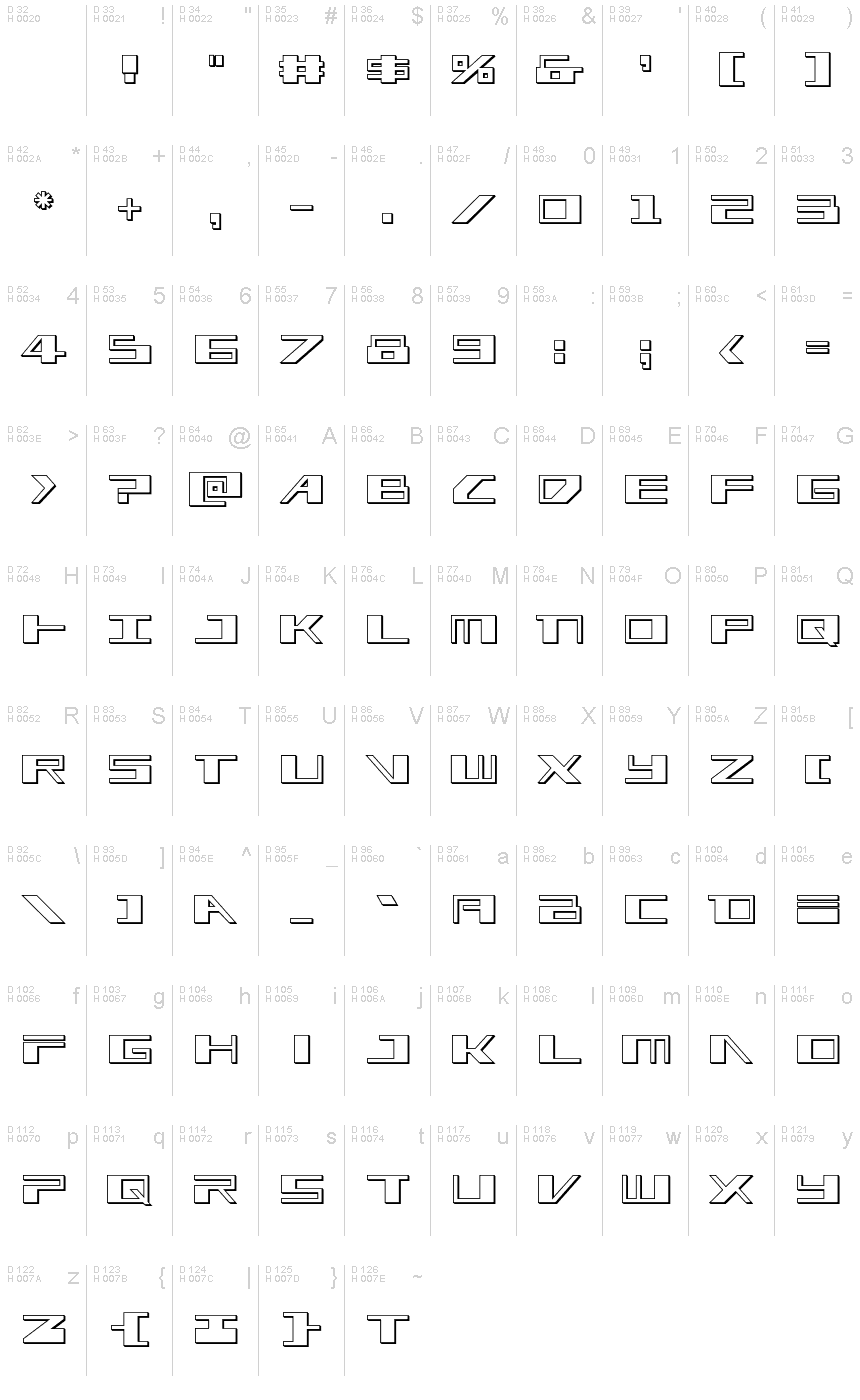
3AGLE 3D
3AGLE 3D emerges as a bold statement in the Iconian Fonts family, designed to capture the essence of futurism in typography.
This display font boasts a robust and extra-expanded form, radiating confidence and contemporary flair. Its 3D style adds depth to any project, making it an ideal choice for those looking to infuse a sense of innovation and modernity into their creative works. Whether it's for dynamic logos, eye-catching headlines, or engaging digital media, 3AGLE 3D stands out with its forward-thinking design and potential to transform simple text into captivating visual statements.